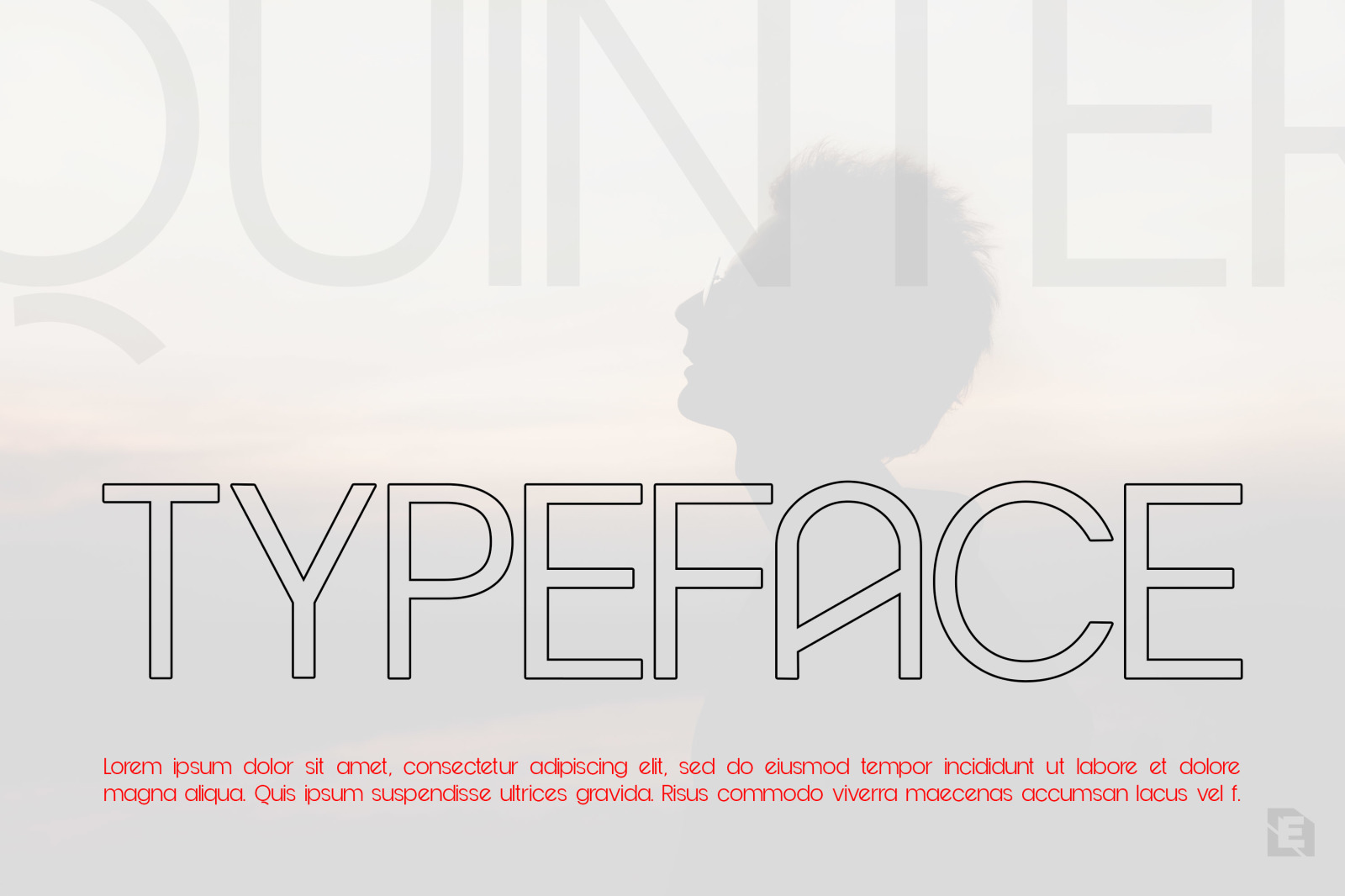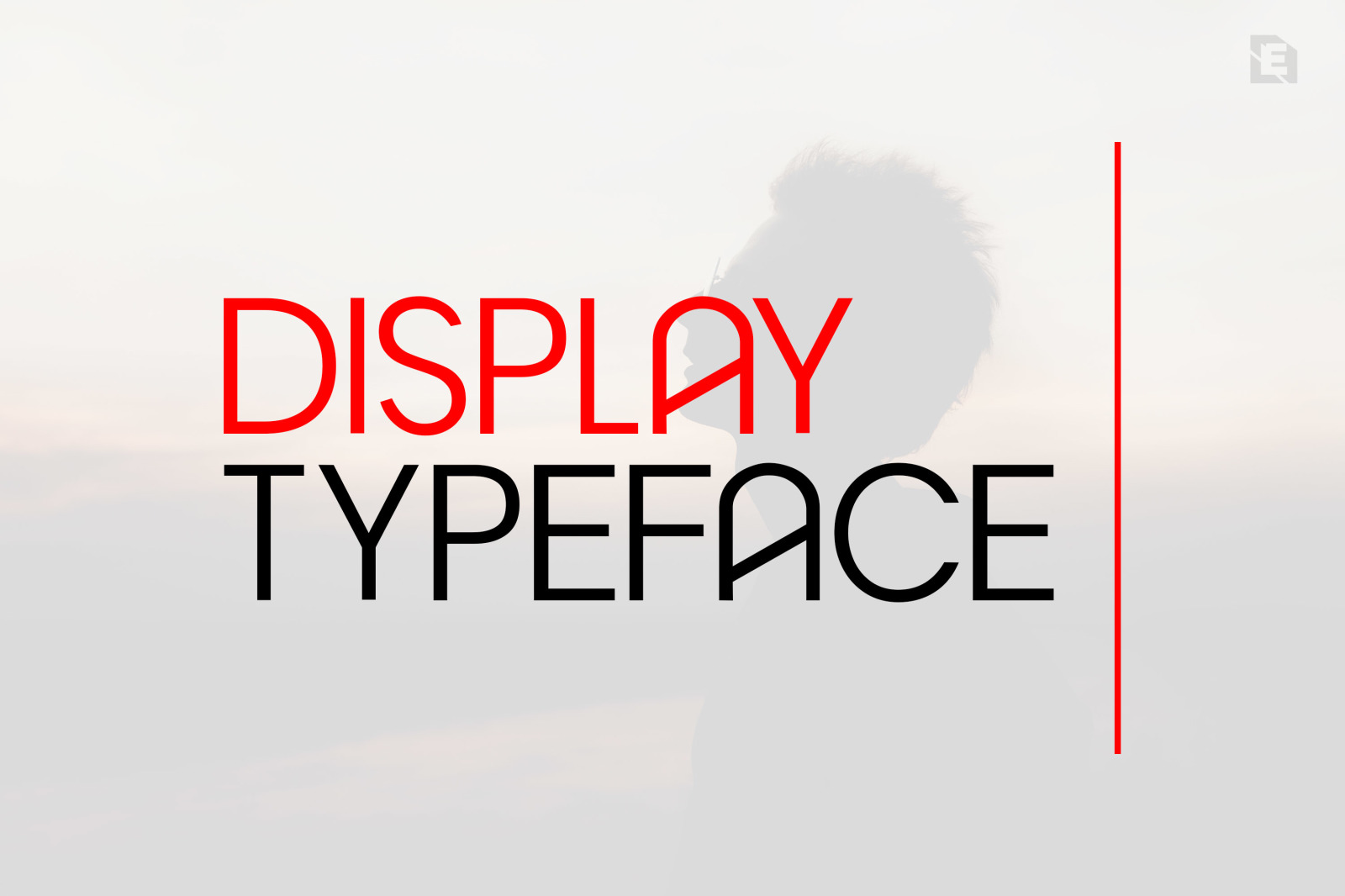
Quinter Font
Quinter Font is a Minimal and neat sans serif font. This versatile font has a wide range of applications, ranging from greeting cards to kids’ crafts, and is guaranteed to add a sweet touch to your next design.
Quinter Font is perfect for designs that need to have a traditional, antique feel while still being sleek and minimalist. It will look fantastic with any logo, product name, poster, or design. A combination of elegant all caps sans serif font and an elegant script font that looks divine when paired together.
It has thin and bold letters, which will be perfect for logos and branding projects. This font is intended for use as a display font. It has a versatile, bold yet playful design, allowing you to be creative with your projects.